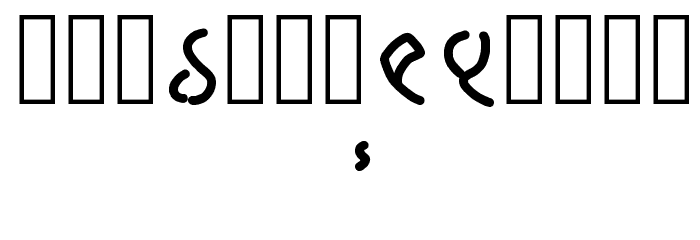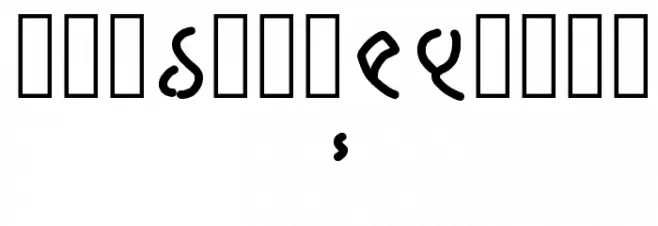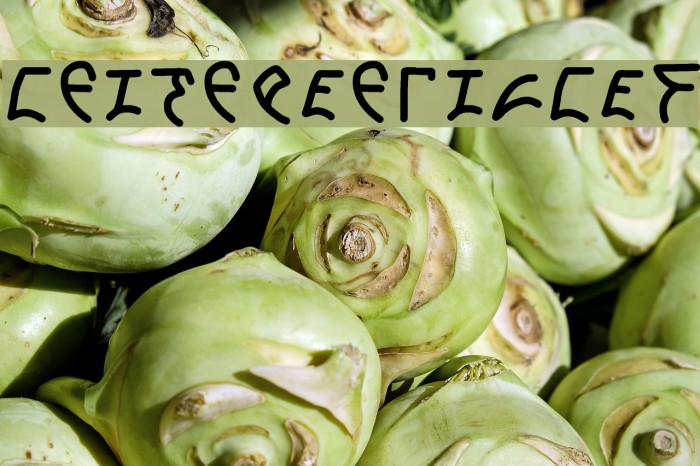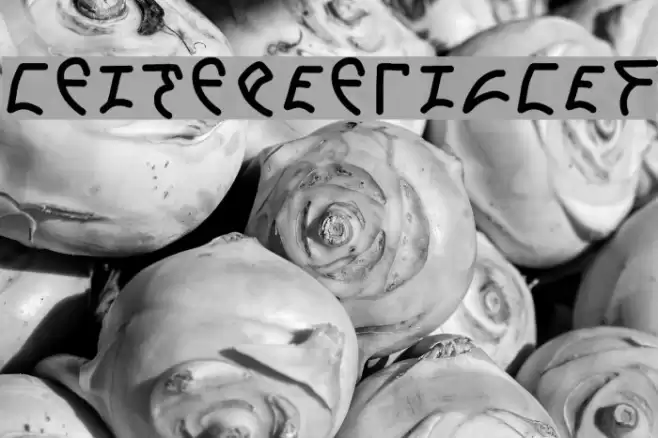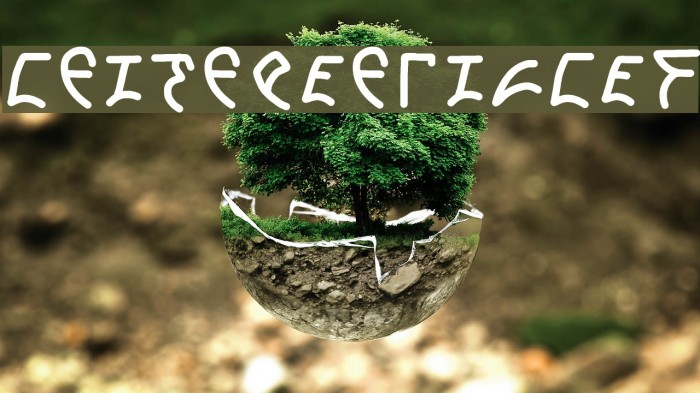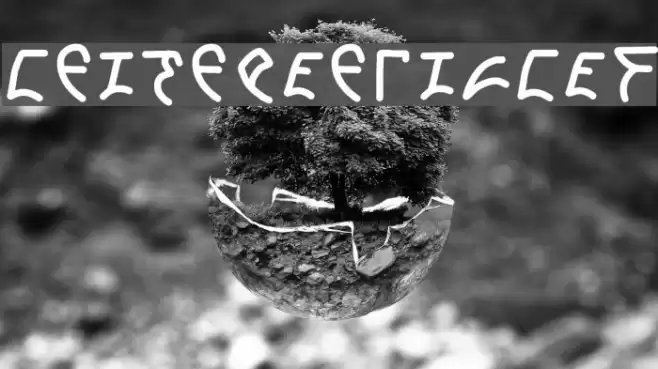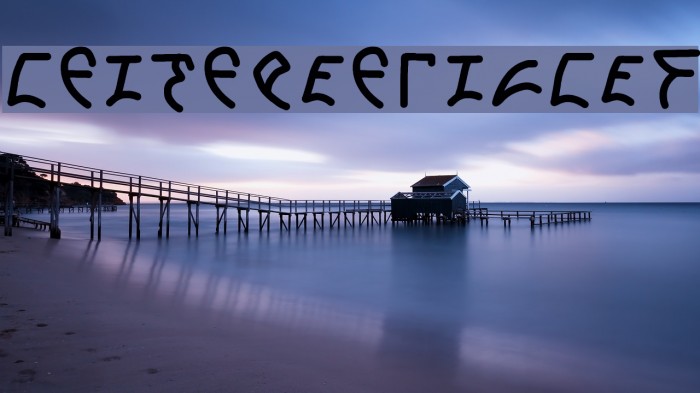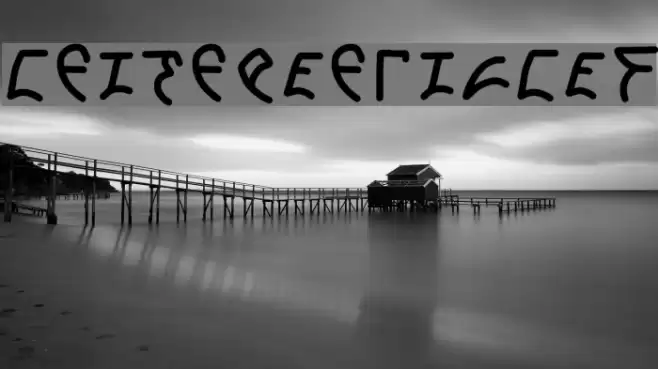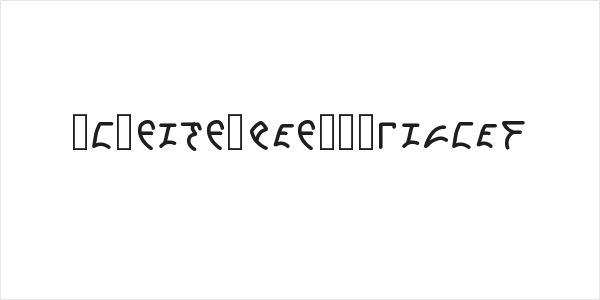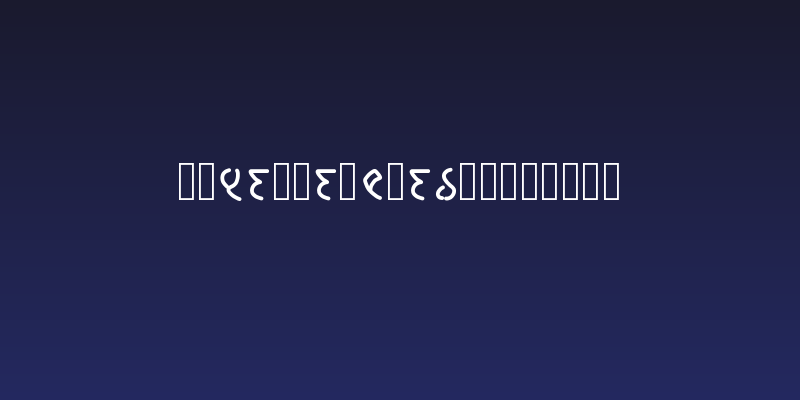
Klingon Hand Regular Font
Klingon Hand Regular Description
This font features a unique and stylized script that resembles an alien or ancient language. The characters have a hand-drawn appearance, with irregular strokes and varying thicknesses that give it an organic and dynamic feel. The letters are distinct and have a flowing, cursive-like quality, yet maintain a structured form. The overall design is reminiscent of calligraphy, with an emphasis on curves and loops. This font is highly decorative and would stand out in any design project that requires a touch of the exotic or otherworldly.
Use CaseLogos, Posters, Themed Events
Proposed ProjectsIdeal for use in science fiction themed projects, fantasy book covers, movie posters, or any design requiring an exotic or mysterious touch.